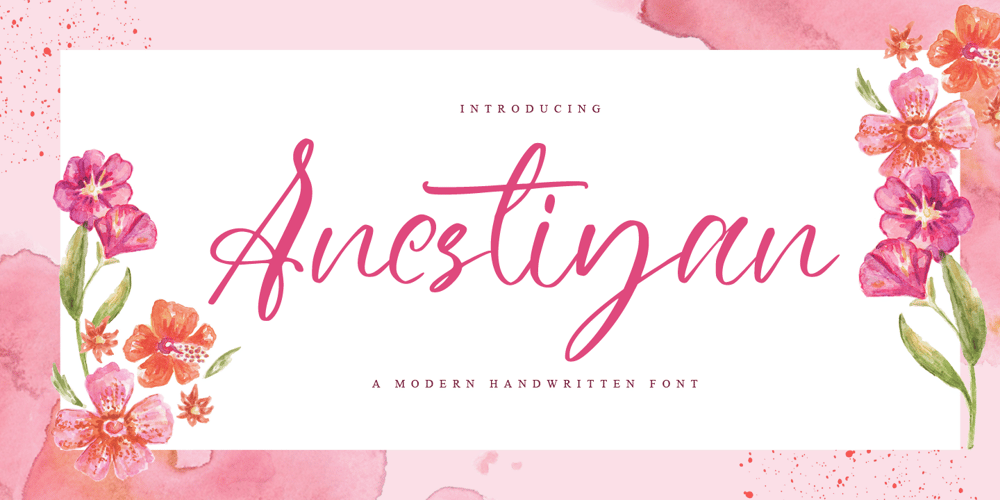
Anestiyan Font Family was designed by Hayinah and published by Rockboys Studio. Anestiyan contains 1 styles and family package options. Anestiyan is a lovely script font known for its elegant, flowing curves and sophisticated design. It’s characterized by its smooth, connected letters that create a graceful, handwritten effect. Ideal for invitations, greeting cards, and other projects requiring a touch of refinement, Anestiyan combines readability with artistic flair. The font’s balanced strokes and charming flourishes give it a timeless, romantic quality, making it a popular choice for adding a personal, upscale touch to your designs.